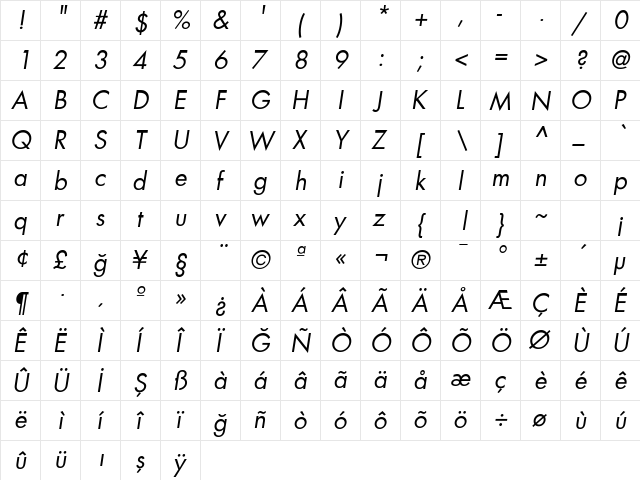
FuturaBookItalic Regular Font Preview
FuturaBookItalic Regular
FuturaBookItalic Regular Font Details
Design Context for FuturaBookItalic Typeface
FuturaBookItalic channels digital-age aesthetics through its sharp, structured letterforms — ideal for brands that want to signal innovation. The dynamic lean of this cut emphasises speed and emphasis in any layout.